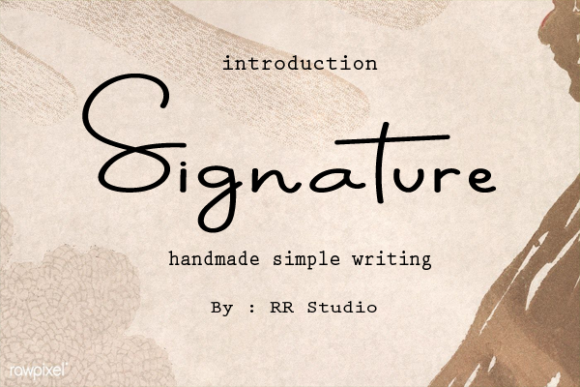
Signature is a stylish and incredibly elegant handwritten font. It looks stunning on wedding invitations, thank you cards, quotes, greeting cards, logos, business cards and every other design which needs a handwritten touch.